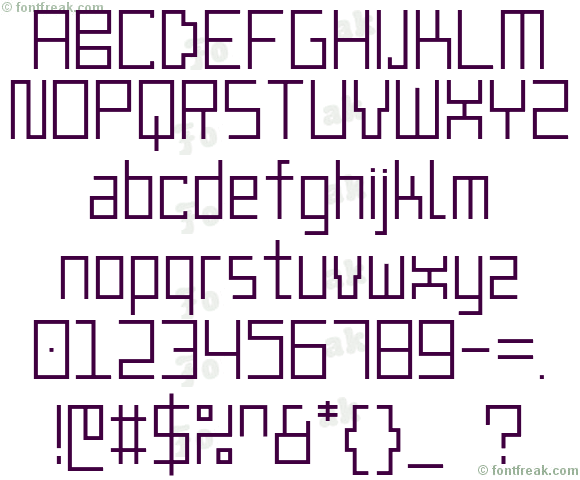
Linerama
Linerama Bold
About Linerama
Linerama by GGBot is a bold, contemporary display font that stands out in the realm of modern typography. Characterized as a sans-serif typeface, it features clean lines and geometric forms that exude a sense of strength and clarity. The stroke weight is consistent, providing a solid appearance, while the spacing is well-balanced, ensuring legibility even at larger sizes. The font's design incorporates subtle decorative elements that enhance its visual appeal without overwhelming the viewer, making it suitable for a variety of applications.
This versatile font is ideal for use in vibrant contexts such as movie posters, where it can effectively convey excitement and energy. It also works beautifully for restaurant menus, giving a modern edge to the dining experience. Additionally, Linerama is perfect for branding materials, allowing small business owners to create a memorable impression. Graphic designers will find it a valuable asset for promotional materials, websites, and social media graphics, as it captures attention while remaining functional.
Targeting graphic designers, small business owners, and content creators, Linerama invites creativity and innovation. Its bold nature encourages users to think outside the box, making it an excellent choice for projects that require a distinctive typographic voice.